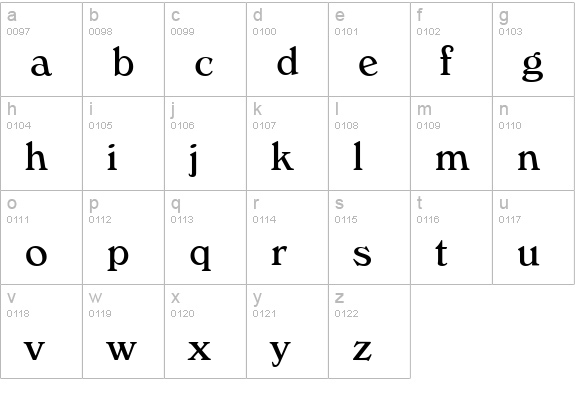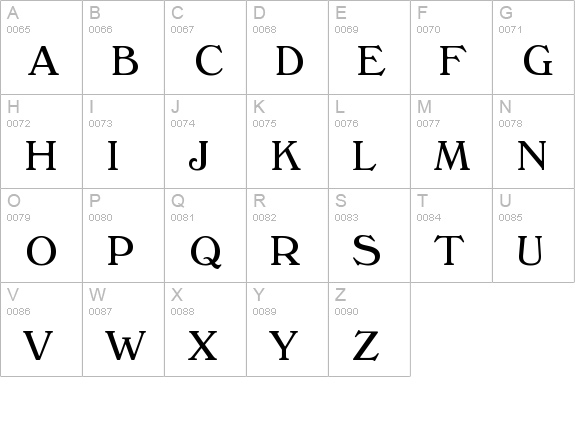
VeronaSerial-Regular is the standard, neutral variant in the VeronaSerial typeface family \xE2\x80\x94 well suited to general body text, paragraphs, and standard typographic work.
VeronaSerial-Regular is a versatile and elegant font that exudes sophistication and style. With its clean lines and classic design, this font is perfect for a wide range of design projects, from branding to editorial work. The timeless appeal of VeronaSerial-Regular makes it a popular choice among designers looking for a font that combines tradition with modernity. And the best part? VeronaSerial-Regular is available for free download at FontsMarket.com. This means you can easily access this beautiful font and incorporate it into your designs without any cost. Whether you're working on a personal project or a professional assignment, VeronaSerial-Regular is sure to elevate your work with its refined aesthetic and timeless charm. Download it today and add a touch of elegance to your designs!